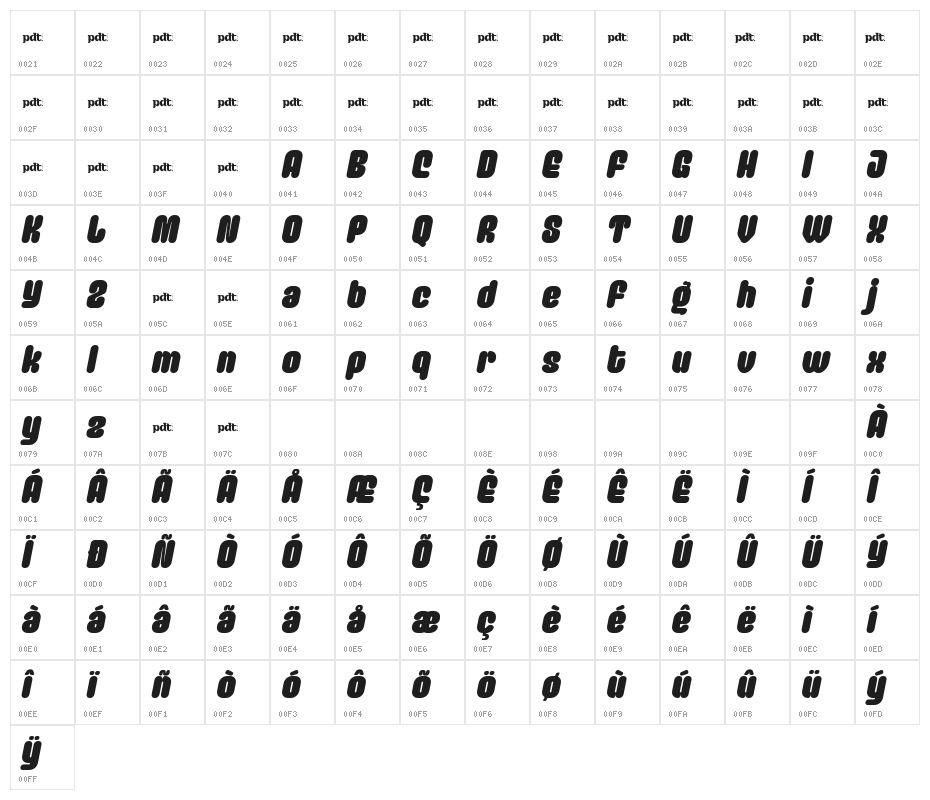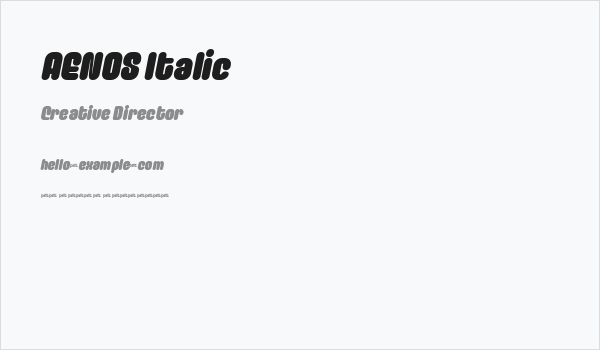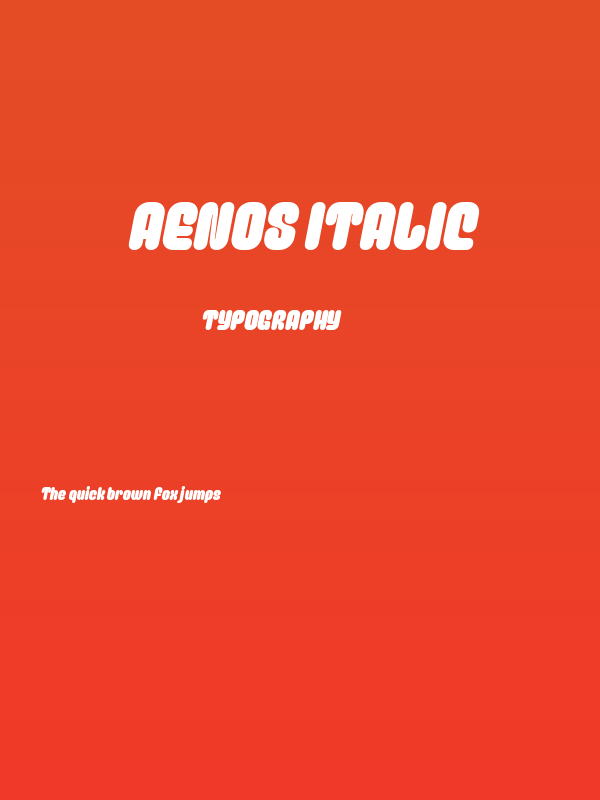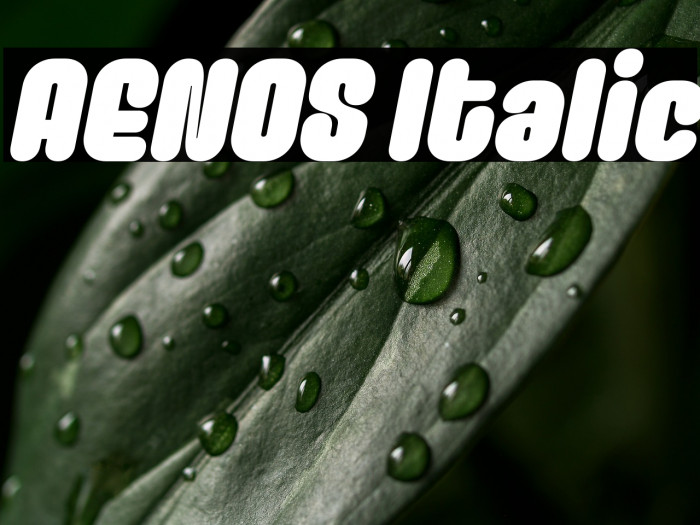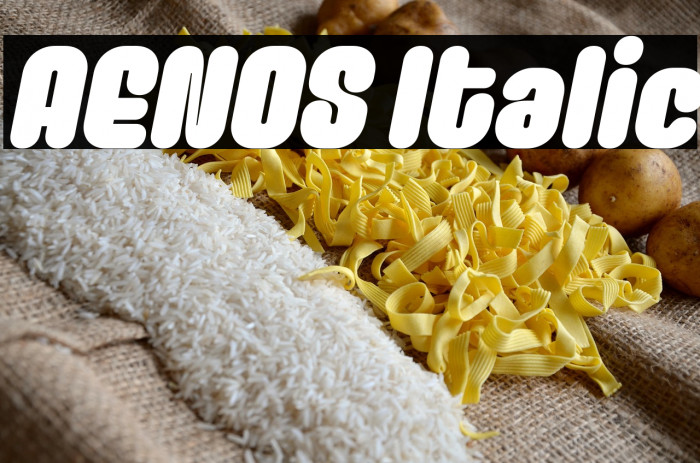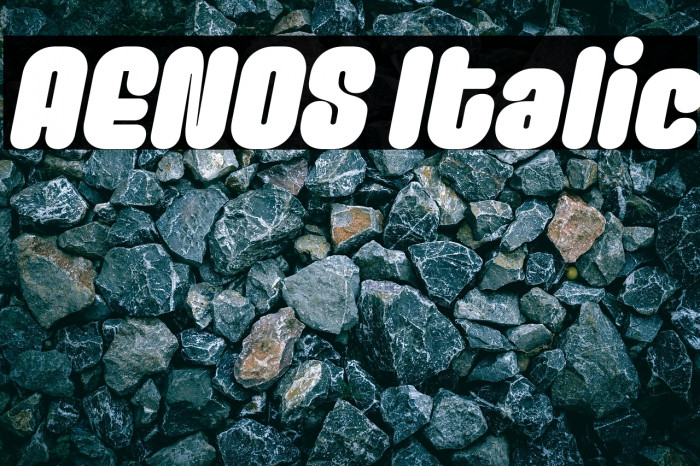
AENOS Italic Font
AENOS Italic Description
This font features a bold and rounded style with a playful and modern aesthetic. The characters are thick and have a smooth, flowing appearance, giving them a sense of movement and energy. The rounded edges and uniform stroke width contribute to a friendly and approachable look. The italic slant adds a dynamic touch, enhancing the overall lively feel. This font is well-suited for projects that require a bold statement or a fun, engaging vibe.